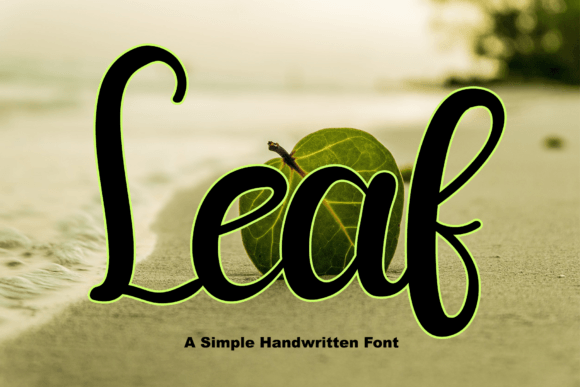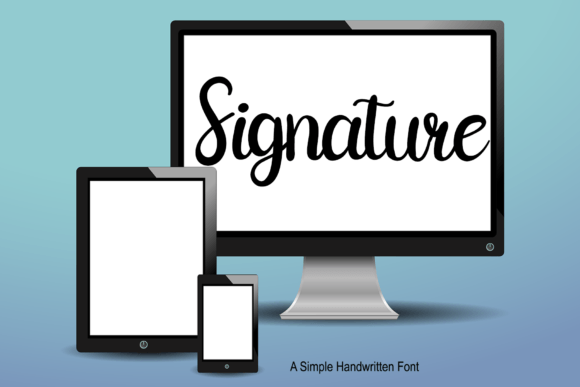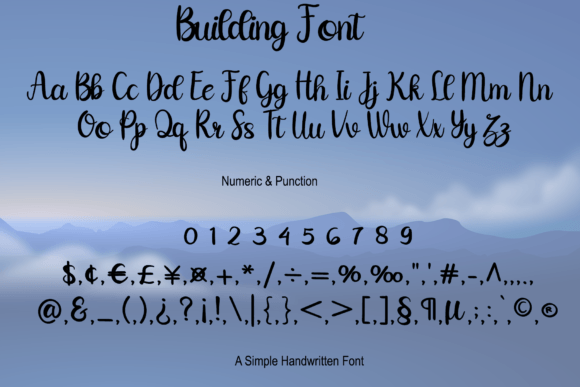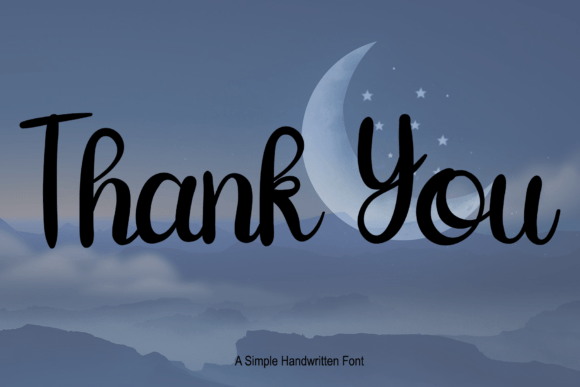
Introducing Building Font: The Elegant and Delicate Handwritten Typeface for Your Design Needs
Are you a designer or crafter looking for a unique and versatile font to elevate your creative projects? Look no further than Building Font, an elegant and delicate handwritten typeface that is perfect for a wide range of design applications. In this article, we’ll explore the features and benefits of Building Font, and show you how it can help take your designs to the next level.
What is Building Font?
Building Font is a beautifully crafted handwritten typeface that exudes elegance and sophistication. With its delicate lines and refined aesthetic, this font is perfect for designers who want to add a touch of personality and style to their work. Whether you’re creating a logo, branding materials, social media posts, or any other type of design, Building Font is the perfect choice.
Key Features of Building Font
So, what makes Building Font so special? Here are just a few of its key features:
- Elegant and delicate design: Building Font features a beautiful, handwritten design that is both elegant and delicate. Its refined aesthetic makes it perfect for high-end designs and luxury brands.
- Versatile and flexible: Building Font is a versatile font that can be used for a wide range of design applications, from logos and branding to social media posts and advertisements.
- Easy to read: Despite its delicate design, Building Font is easy to read and understand, making it perfect for body text and other applications where legibility is key.
- Scalable: Building Font is designed to be scalable, so you can use it for both large and small designs without worrying about losing quality.
Use Cases for Building Font
So, what can you use Building Font for? The possibilities are endless, but here are a few ideas to get you started:
- Logos and branding: Building Font is perfect for creating elegant and sophisticated logos and branding materials.
- Social media posts: Add a touch of personality and style to your social media posts with Building Font.
- Advertisements: Use Building Font to create eye-catching and effective advertisements that grab attention.
- Business cards: Create professional and elegant business cards with Building Font.
- Wedding invitations: Building Font is perfect for creating beautiful and elegant wedding invitations.
- Product design: Use Building Font to add a touch of style and sophistication to your product designs.
Why Choose Building Font?
So, why should you choose Building Font for your design needs? Here are just a few reasons:
- Unique and distinctive: Building Font is a unique and distinctive font that will help your designs stand out from the crowd.
- Elegant and sophisticated: Building Font features an elegant and sophisticated design that is perfect for high-end designs and luxury brands.
- High-quality: Building Font is a high-quality font that is designed to deliver exceptional results.